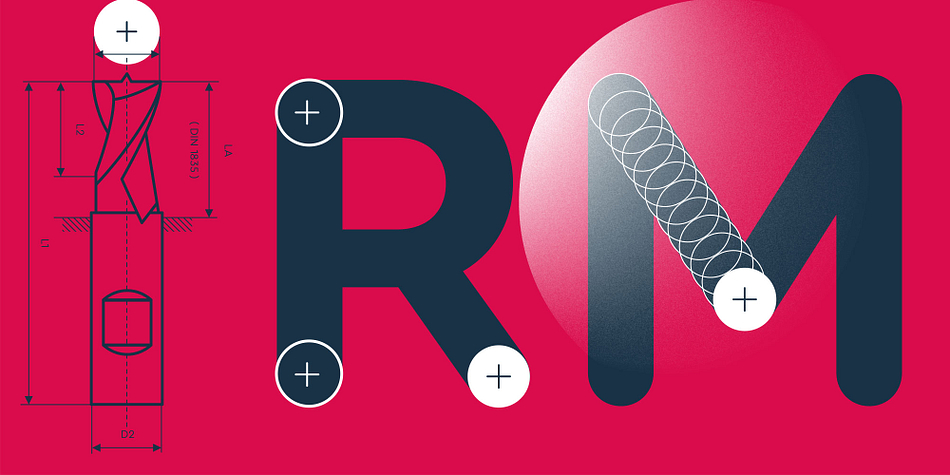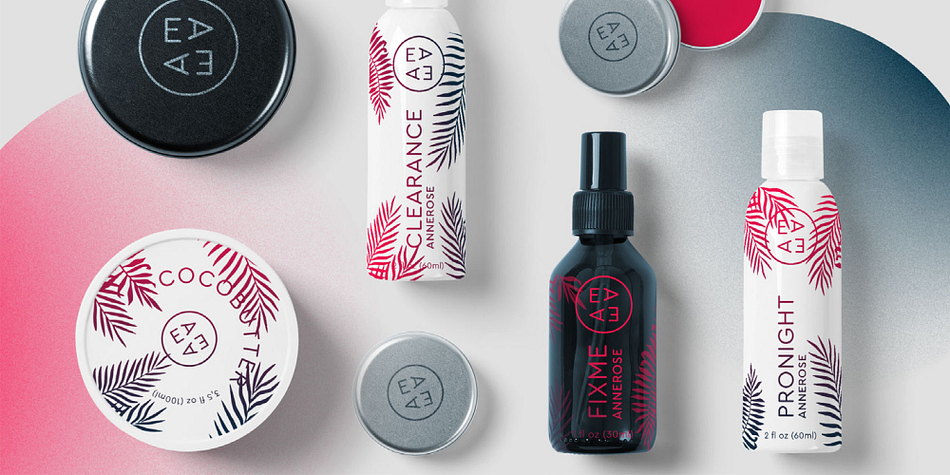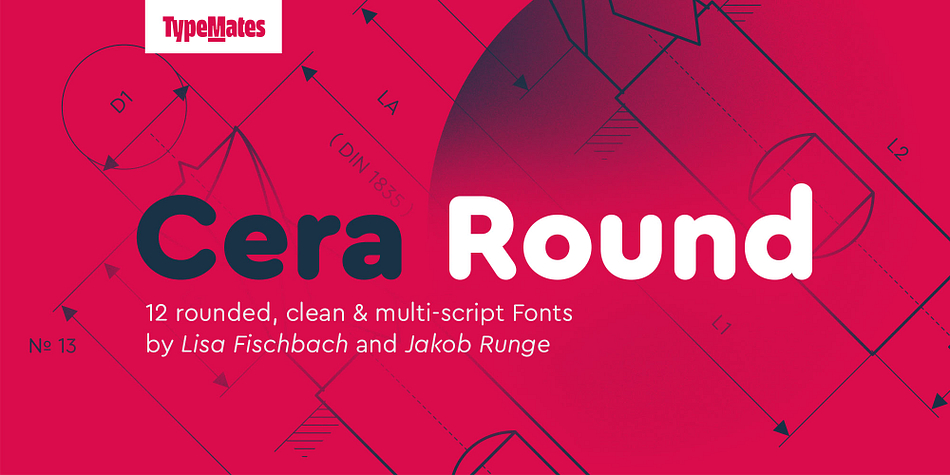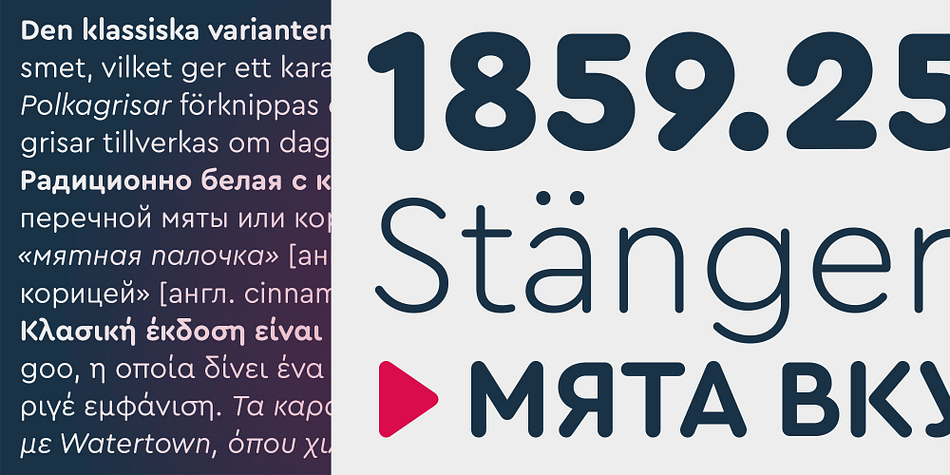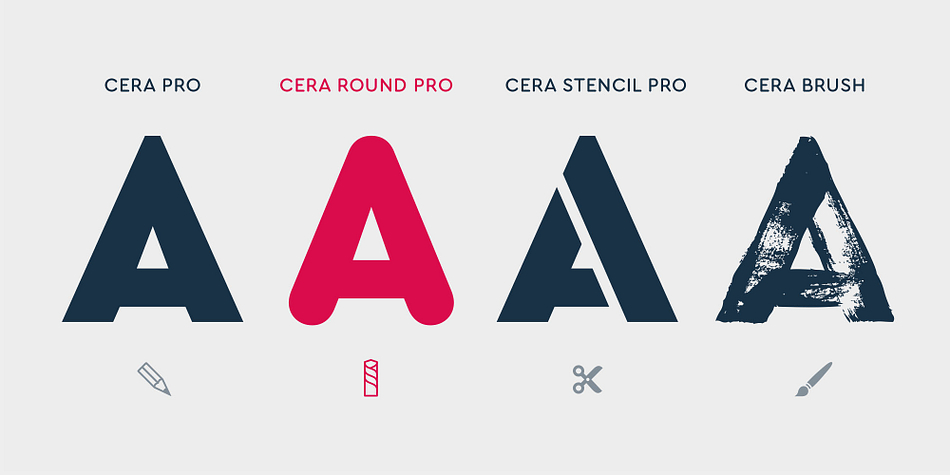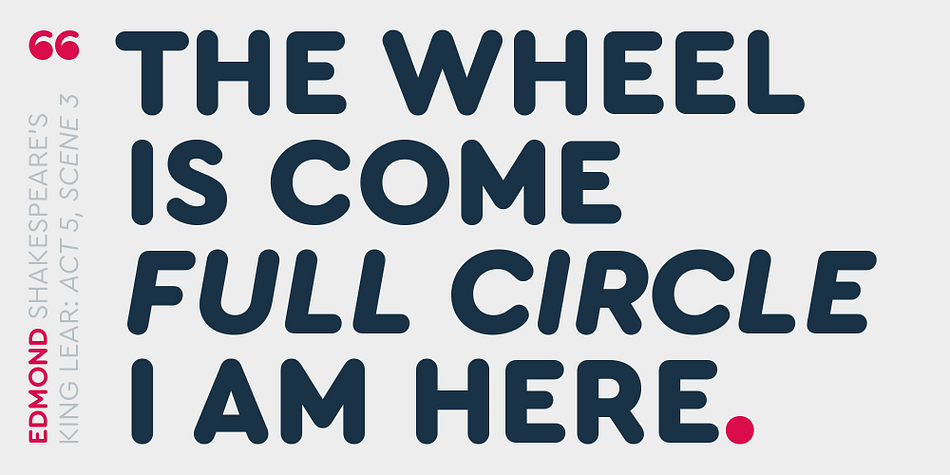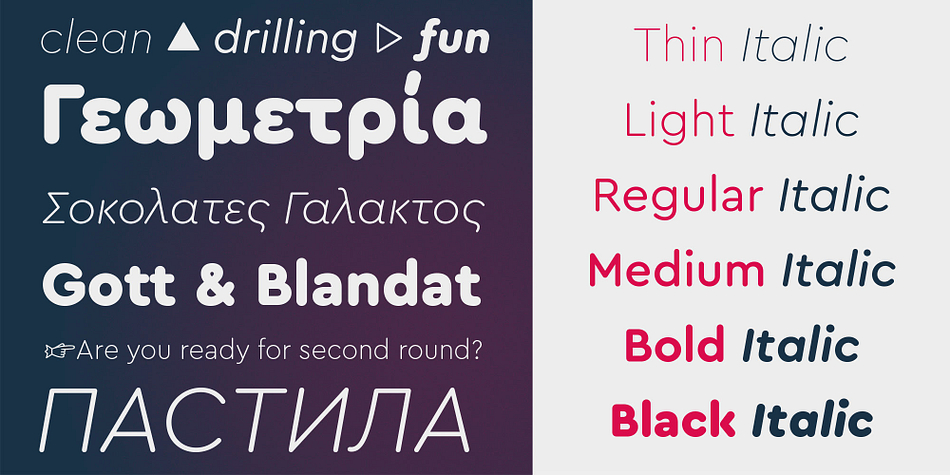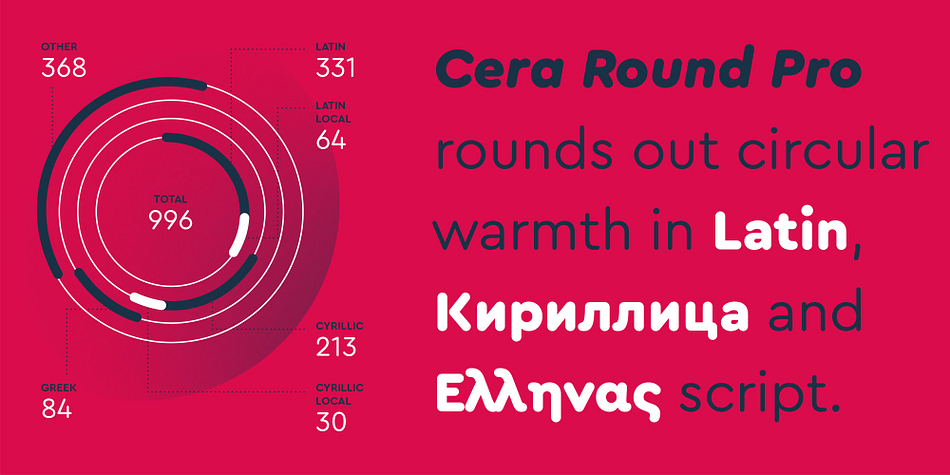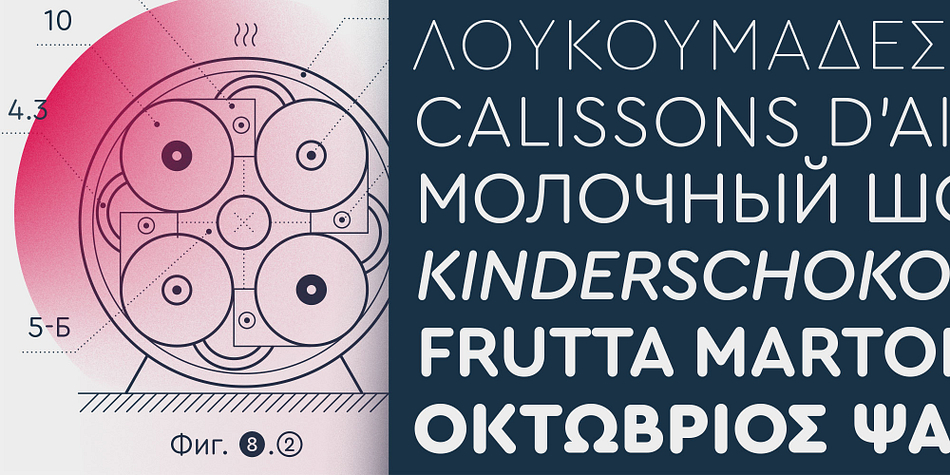
Designed by Lisa Fischbach and Jakob Runge, Cera Round Pro is a sans serif font family. This typeface has six styles and was published by TypeMates.
The pan-European Cera Collection is driven by pure geometry and contains the bestselling Cera, its stenciled counterpart Cera Stencil, Cera Condensed, the hand-crafted display Cera Brush and the soft Cera Round.
As powerful as any other member of the collection, Cera Round Pro combines warmth with elegance and its support for Cyrillic and Greek makes it a reliable and engaging companion for international communication.
Drawing on a tradition of machine-milled lettering and combining it with the technical geometry of Cera, Cera Round Pro features circular stroke endings and softly rounded corners to create cheerful feeling text. Amongst its smooth, yet precise letterforms, the circular o takes on a new, striking quality.
While the regular has been carefully proofed for long editorial texts, Cera Round Pro’s six weights, thin to black, allow for a whole range of expression in display typography. Where the light weights have all the cleanliness and precision of technical drawings, its heavy weights are playful and soft: perfect for strong headlines and packaging projects.
With this broad spectrum of expression, from technical to friendly — and always sincere — Cera Round is an excellent choice for branding and editorial design. Its large x-height also means that it is recommended for interface design.
And while Cera Round Pro may be a counterpart to Cera, it’s not just Cera with rounded corners. We’ve carefully reworked and adjusted many of the glyphs to adapt them to Cera’s new attitude. When rounded edges and smooth shapes created new optical problems, we found new solutions: making Cera Rounded Pro an individual member of the Cera Collection.
The extended, pan-European Cera Pro supports around 150 languages in the Latin, Cyrillic and Greek scripts, and its non-Latin components were developed with native consultants. With over 980 glyphs per style, Cera cares about localised letterforms and has the OpenType features to match.